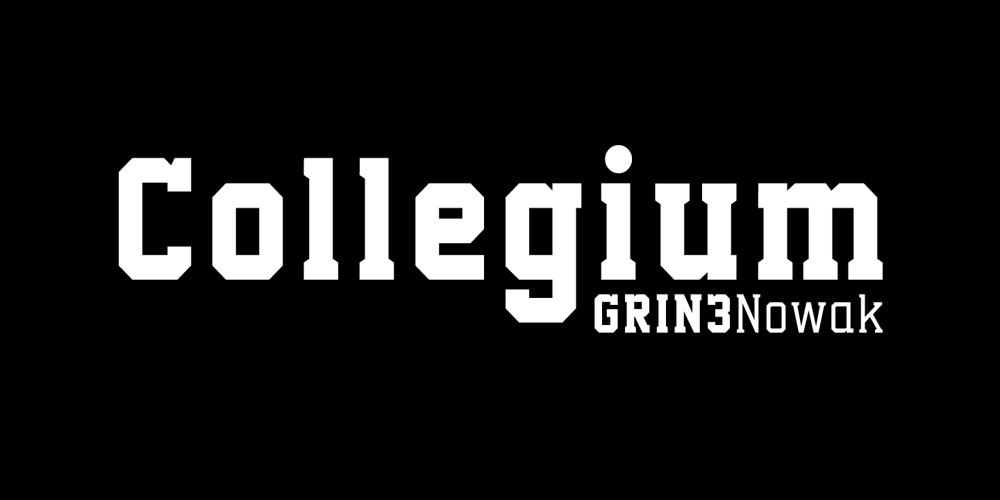
Collegium Font Family was designed by Bartek Nowak and published by GRIN3 (Nowak). Collegium contains 10 styles and family package options. The Collegium is a font family inspired by college and university sportswear lettering. Language support includes Western, Central and Eastern European character sets, as well as Baltic and Turkish languages.